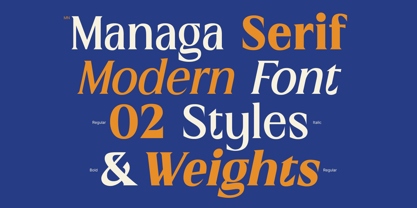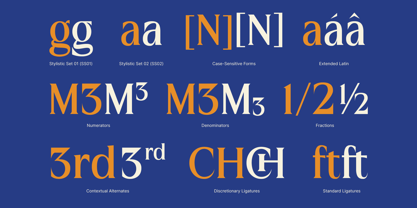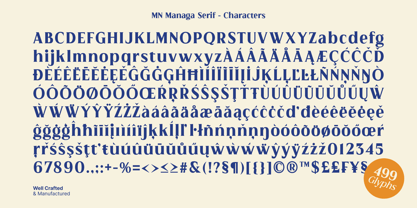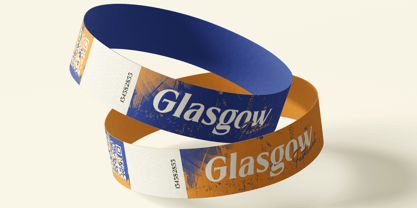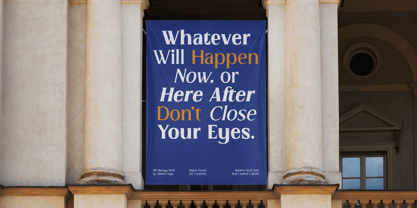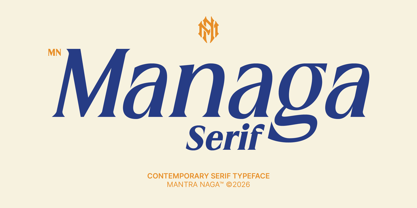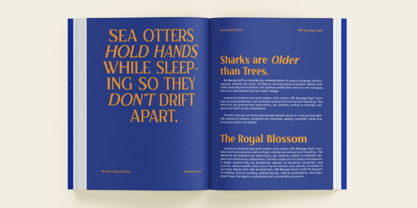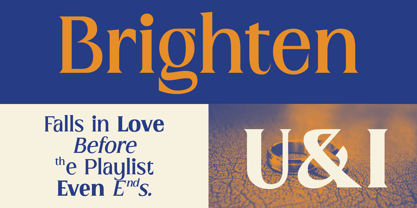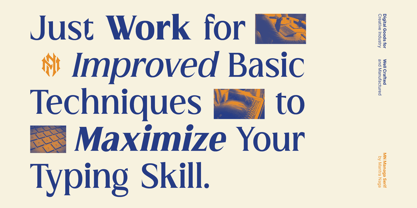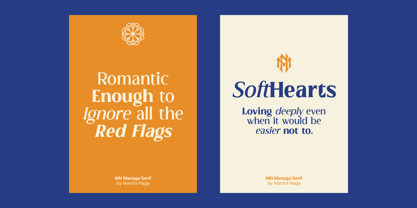
MN Managa Serif
The MN Managa Serif Font Family was designed by Fredo Eka Pratama and published by Mantra Naga Studio. MN Managa Serif contains 4 styles and family package options. More about this family
MN Managa Serif is a contemporary serif typeface that draws inspiration from classic European typography. This font reinterprets transitional and early modern print traditions, creating a refined and confident voice suitable for modern editorial design. With its structured proportions, balanced contrast, and precise serif detailing, MN Managa Serif delivers clarity, authority, and elegance across various layouts. The Italic styles are thoughtfully redrawn to introduce movement and character while maintaining the family’s identity. Available in Regular, Bold, Italic, and Bold Italic, MN Managa Serif is perfect for editorial headlines, premium branding, cultural publications, typographic logos, and sophisticated design systems that demand a commanding yet refined presence.